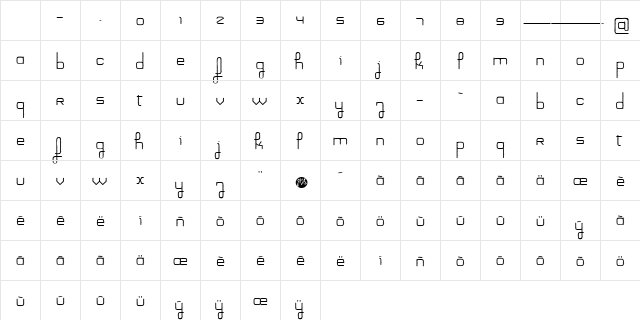
Complete Filament Galactique Regular glyph index. Displaying only characters natively supported by Filament Galactique Regular font.
Filament Galactique is a composed and adaptable typeface that performs quietly and consistently across a wide range of design contexts.